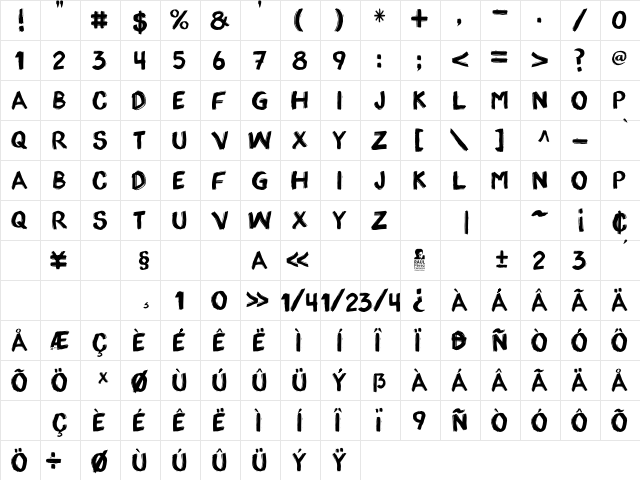
appo paint Regular Font Preview
appo paint Regular
appo paint Regular Font Details
Design Context for appo paint Typeface
appo paint is a composed and adaptable typeface that performs quietly and consistently across a wide range of design contexts.